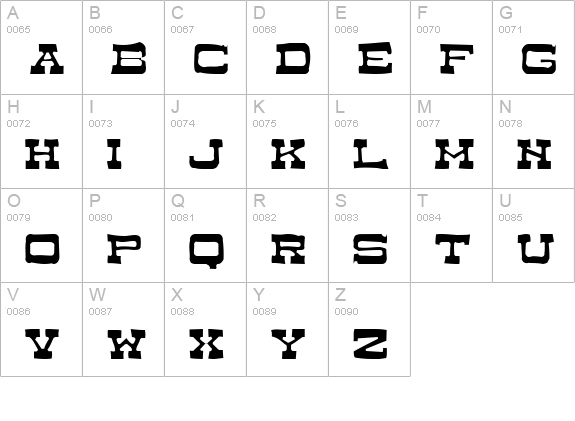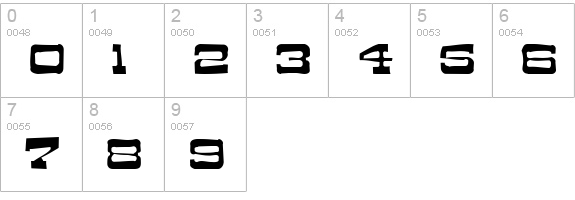
Dry Goods Antique JL is a timeless and elegant font that exudes a sense of nostalgia and sophistication. Its vintage-inspired design is perfect for adding a touch of old-world charm to your projects. Featuring intricate details and unique flourishes, this font is sure to make a statement and captivate your audience. What sets Dry Goods Antique JL apart is not only its classic aesthetic but also the fact that it is available for free download at FontsMarket.com. This makes it easily accessible to designers, creators, and enthusiasts looking to enhance their work with a touch of vintage flair. Whether you're working on a branding project, invitation design, or any creative endeavor, Dry Goods Antique JL is a versatile font that will elevate your work to new heights. Embrace the beauty and sophistication of the past with Dry Goods Antique JL. Download it for free at FontsMarket.com and add a touch of timeless elegance to your designs today.